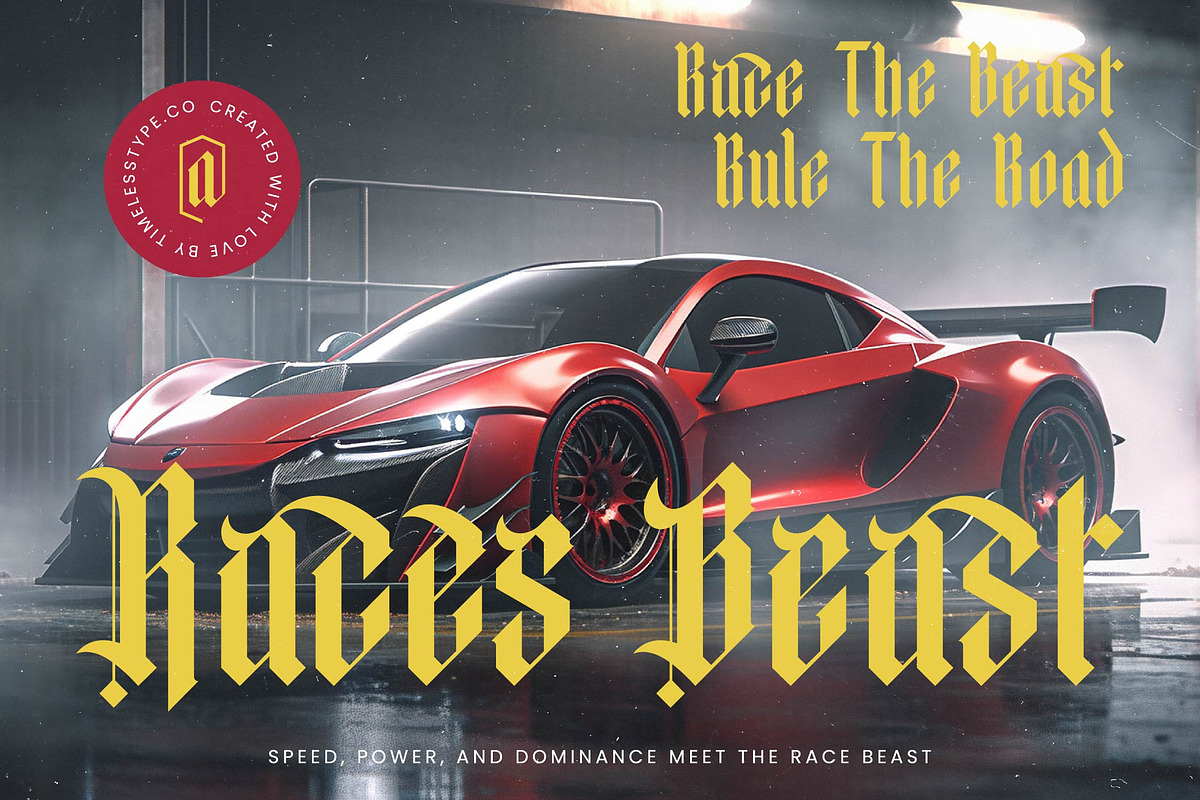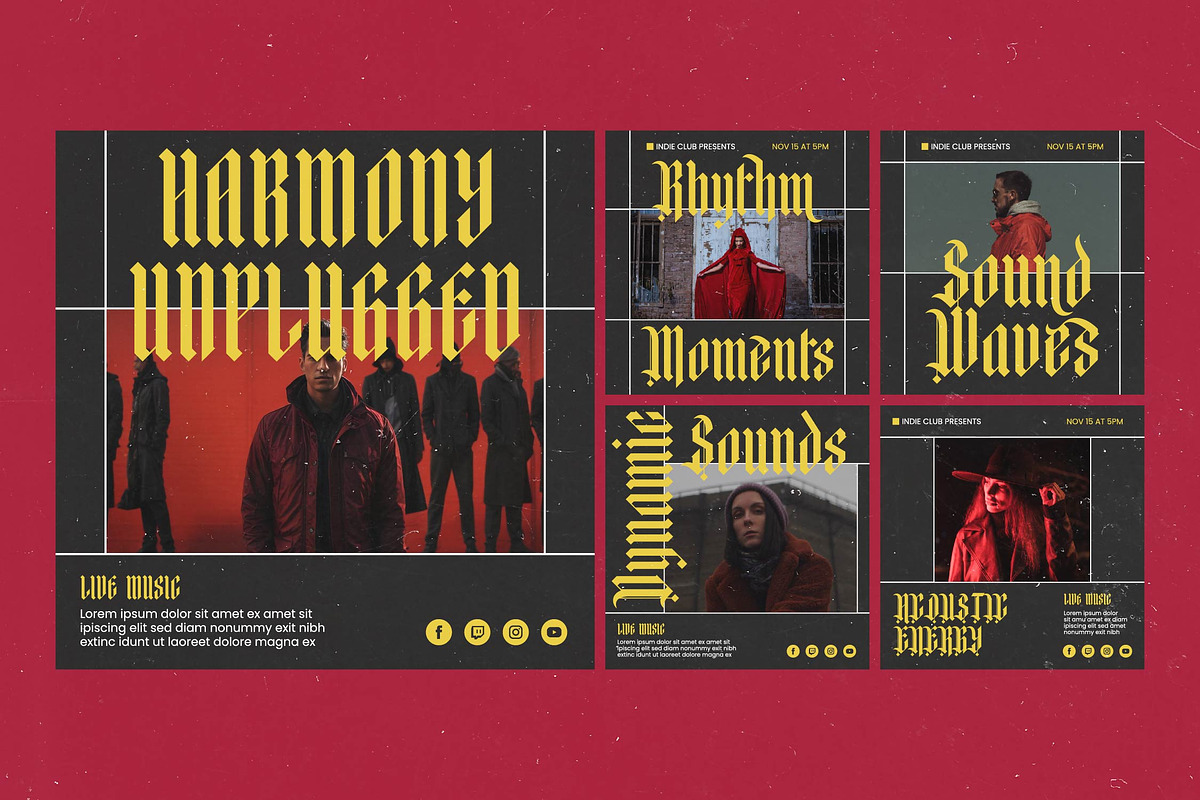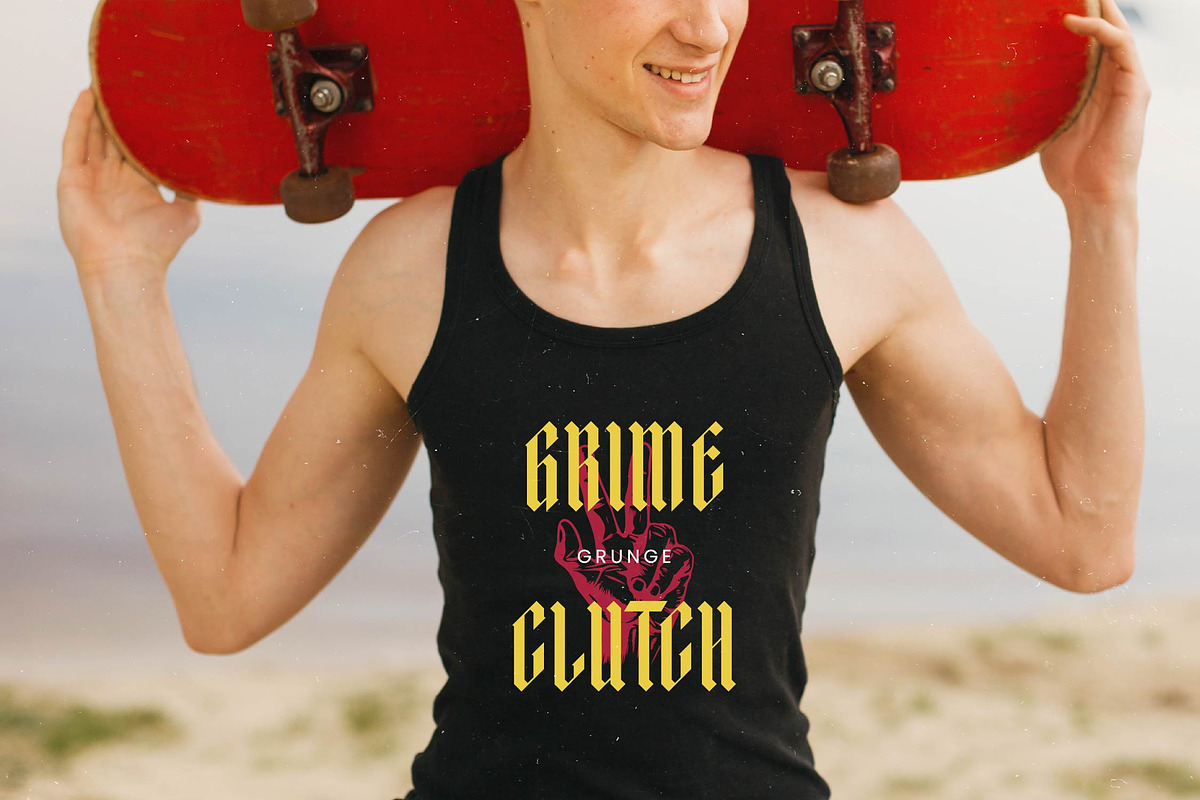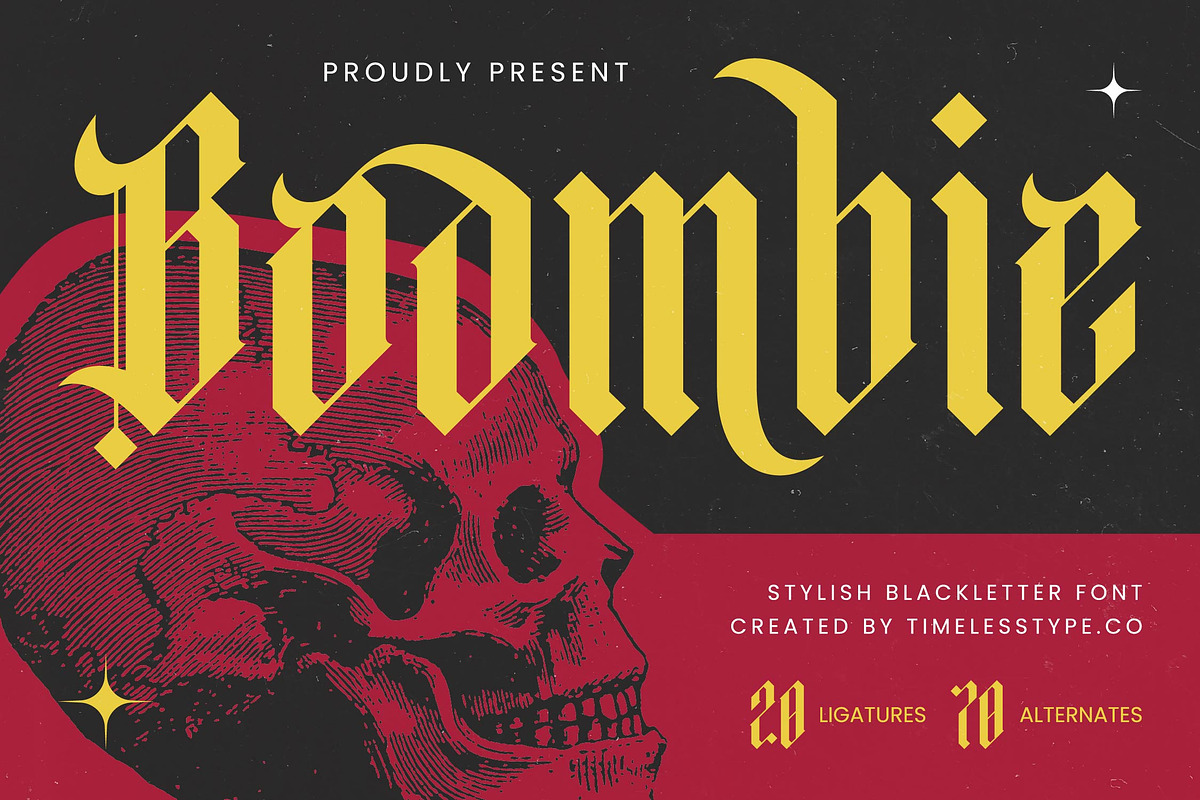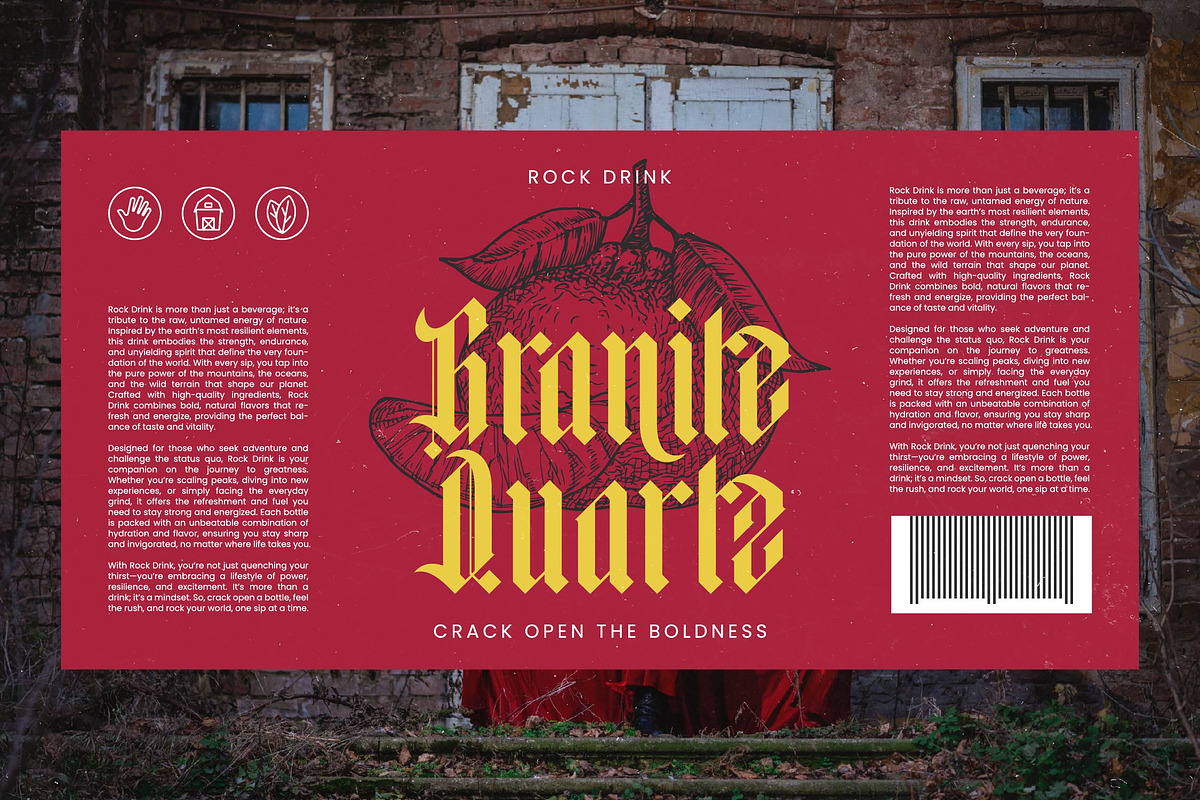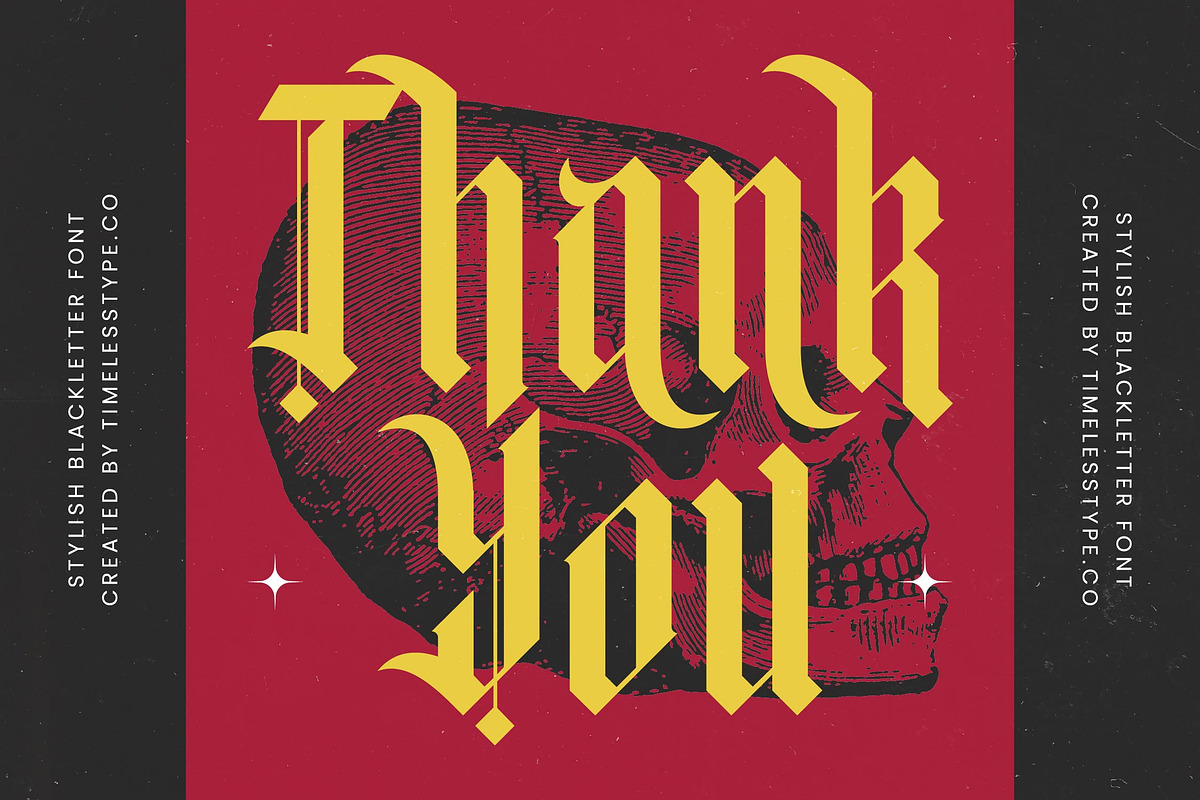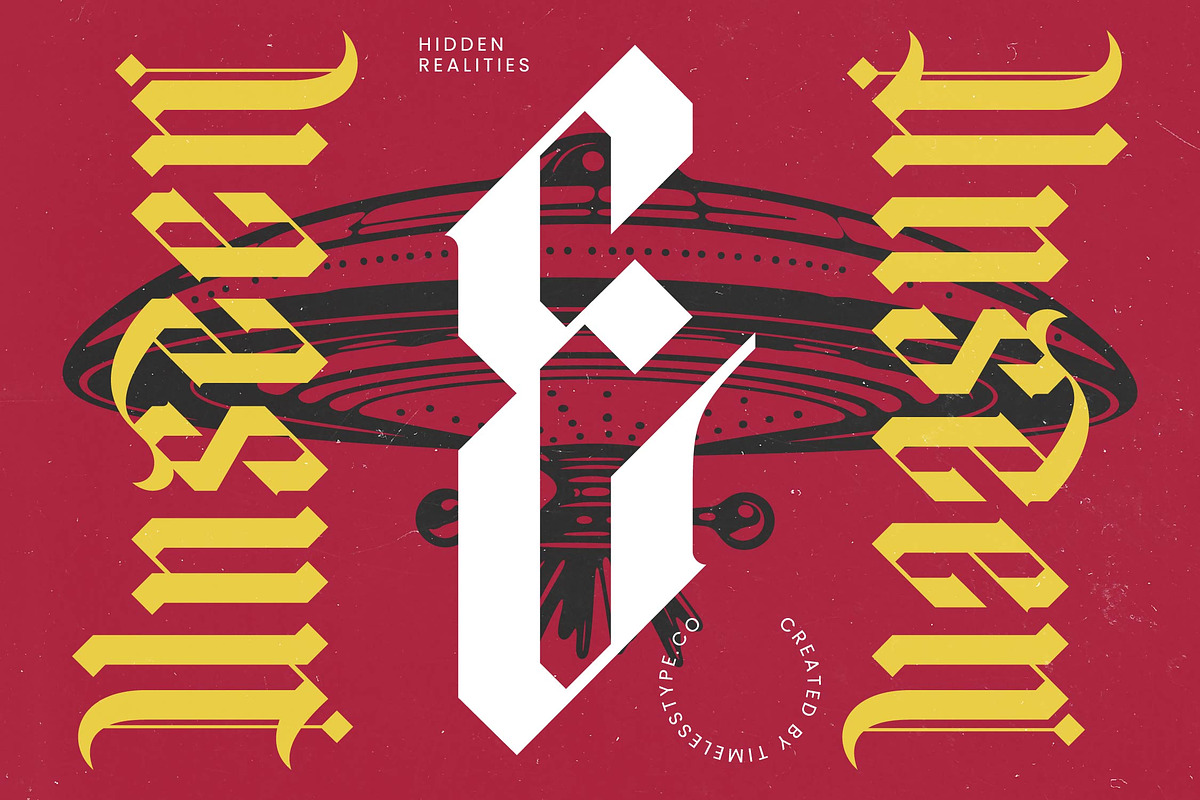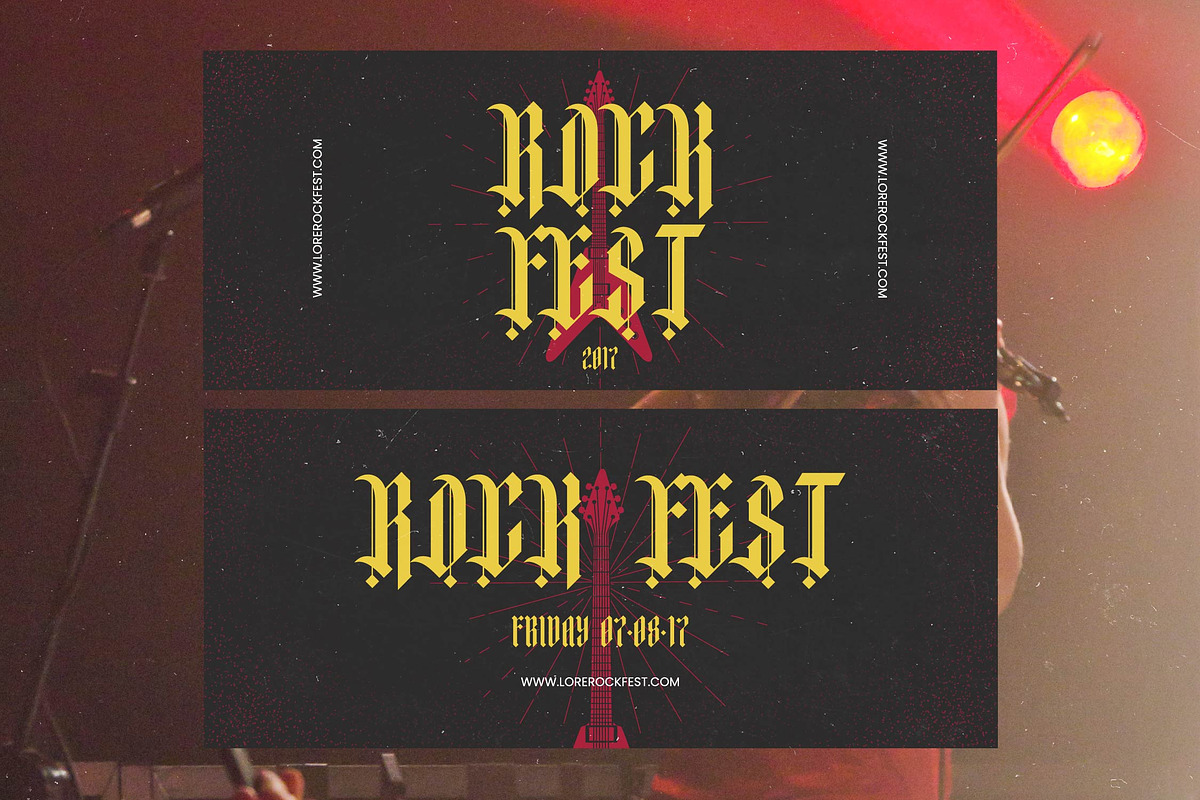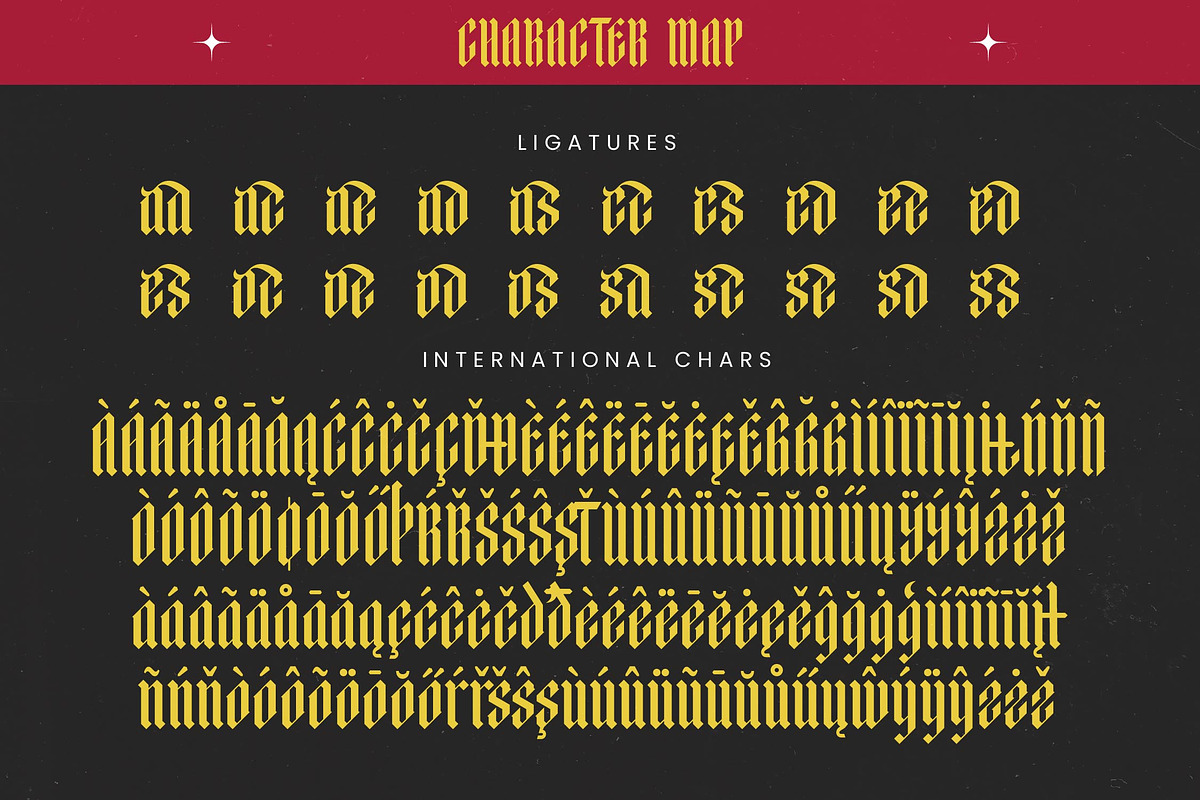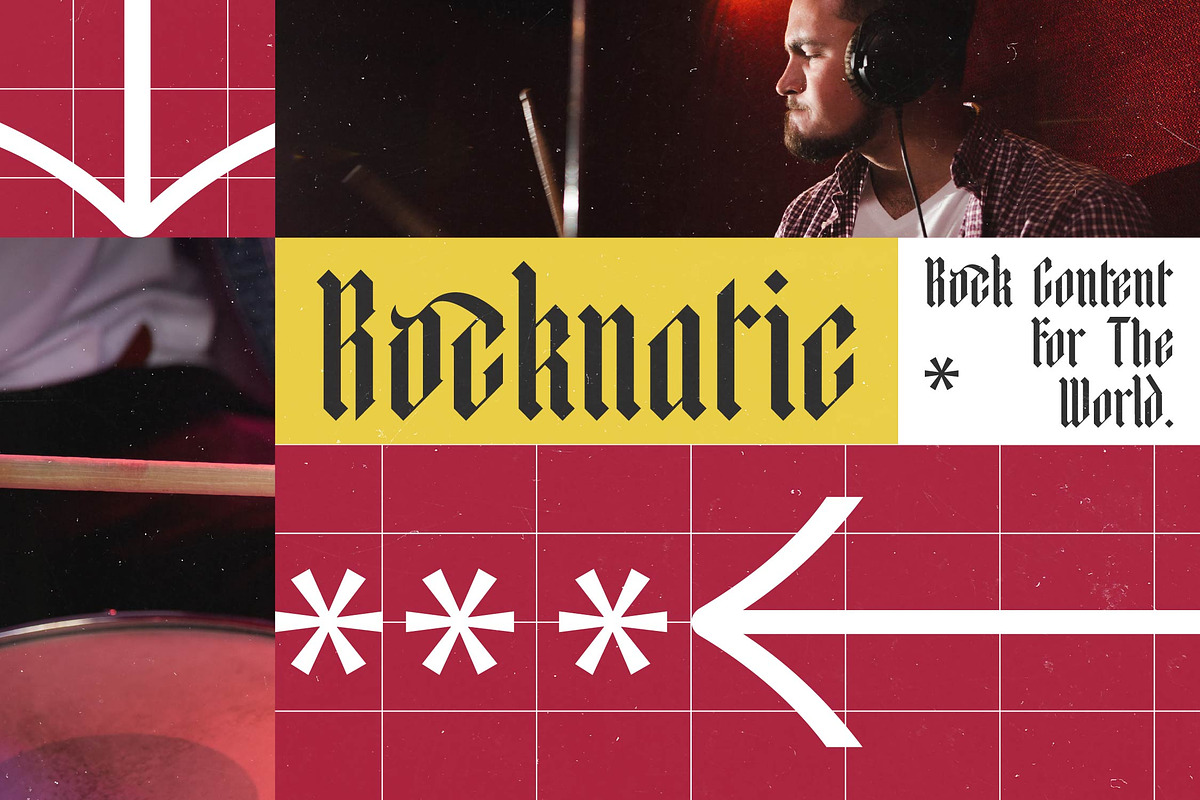
Boombie Stylish Blackletter Font
Unleash a bold statement with Boombie, a typeface that commands attention through its sharp edges and historical gravitas. It is the perfect blend of heritage and modern attitude for designers who refuse to be ignored.
Drawing inspiration from classic gothic calligraphy and dark street culture, this font captures a gritty yet refined atmosphere. Its aesthetic is rooted in traditional blackletter forms but reimagined with a clean, contemporary execution for the digital world.
This modern blackletter display offers an aggressive luxury typography feel that guarantees immediate branding impact. With its sharp terminals and high-contrast construction, it serves as a powerful editorial font for projects requiring a dominant visual presence.
In line with the current modern blackletter trend, this typeface fits perfectly into contemporary character-driven typography movements. It bridges the gap between vintage metal aesthetics and editorial display fonts found in high-fashion and street culture layouts.
Perfectly suited for heavy-metal logo design and apparel branding, it excels in editorial layouts and dark-themed packaging. Whether used for a wedding with a gothic twist or a streetwear fashion label, it provides a unique edge to any project.
This professional package includes over 20 unique ligatures and 70 stylistic alternates to expand your creative possibilities. Full multilingual support ensures you have all the international characters needed for global design projects.